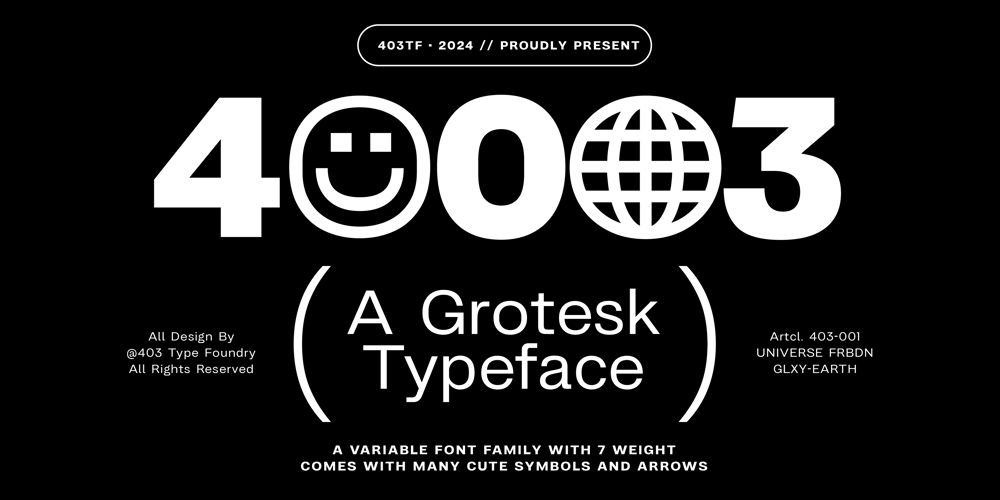
403 Grotesk
403 Grotesk font
403 Grotesk Font Family was designed by Umar Al Farouq, Jodi El Ghazi, Febri Riansah and published by 403TF. 403 Grotesk contains 14 styles and family package options. 403 Grotesk is a contemporary interpretation of the classic grotesque typeface. With its clean lines and geometric forms, it offers a versatile and legible font family perfect for a wide range of applications. Available in seven weights, from Light to Black, and both regular and italic styles, 403 Grotesk provides unparalleled flexibility for designers seeking a modern yet timeless aesthetic.